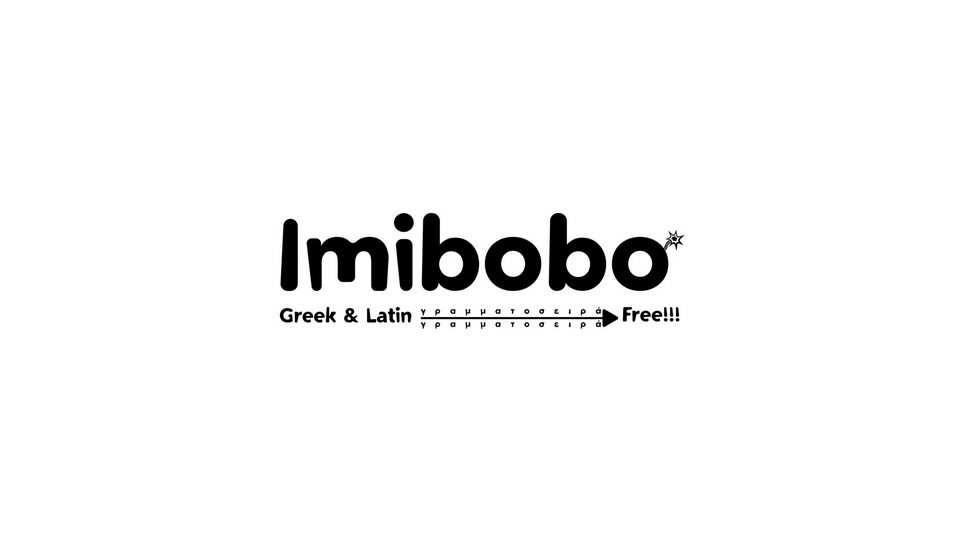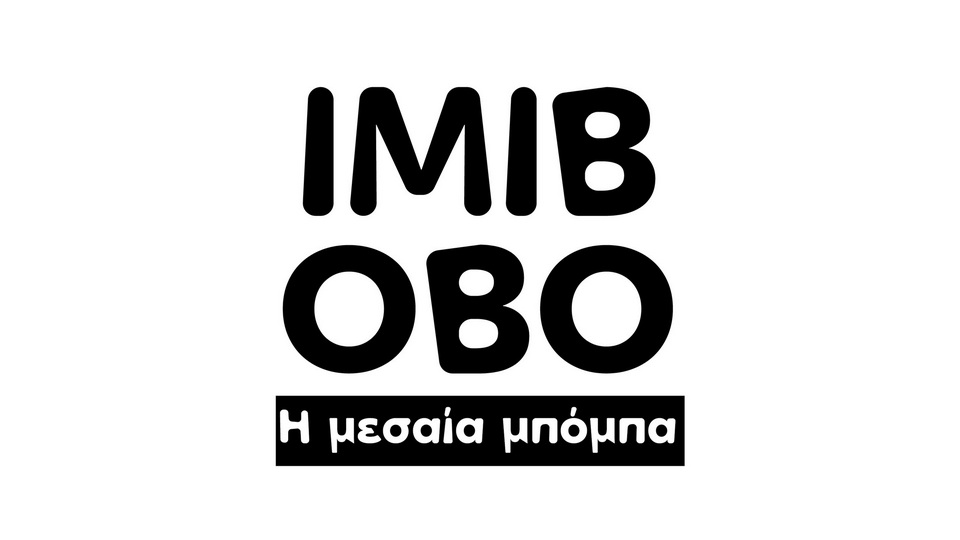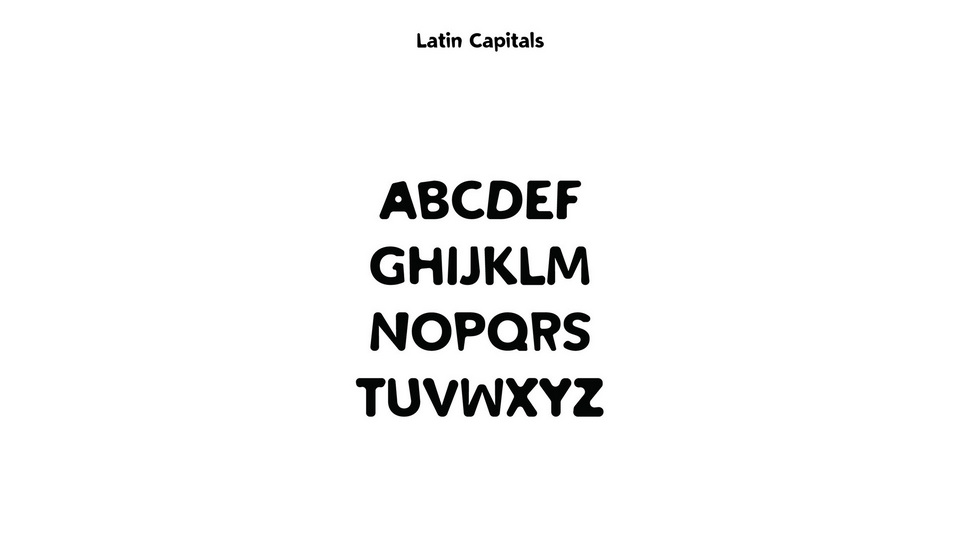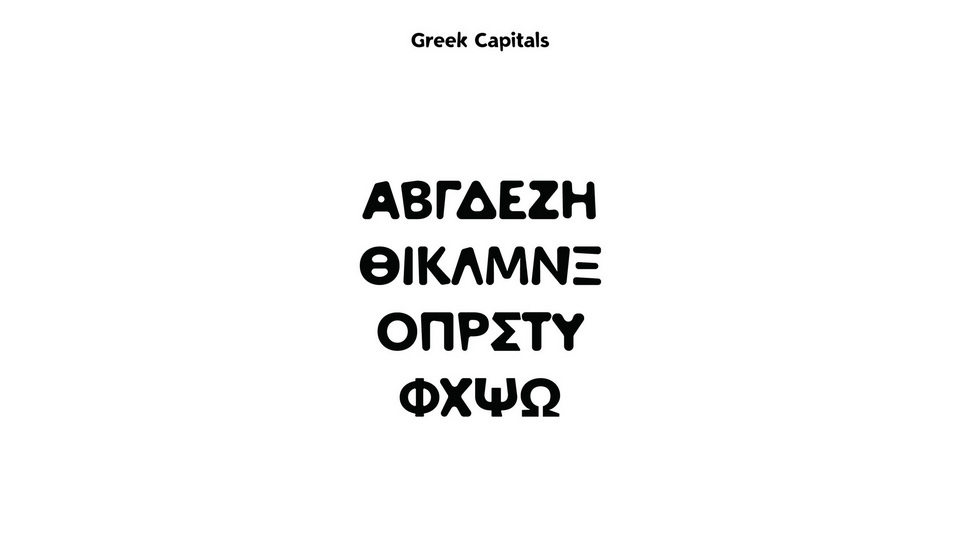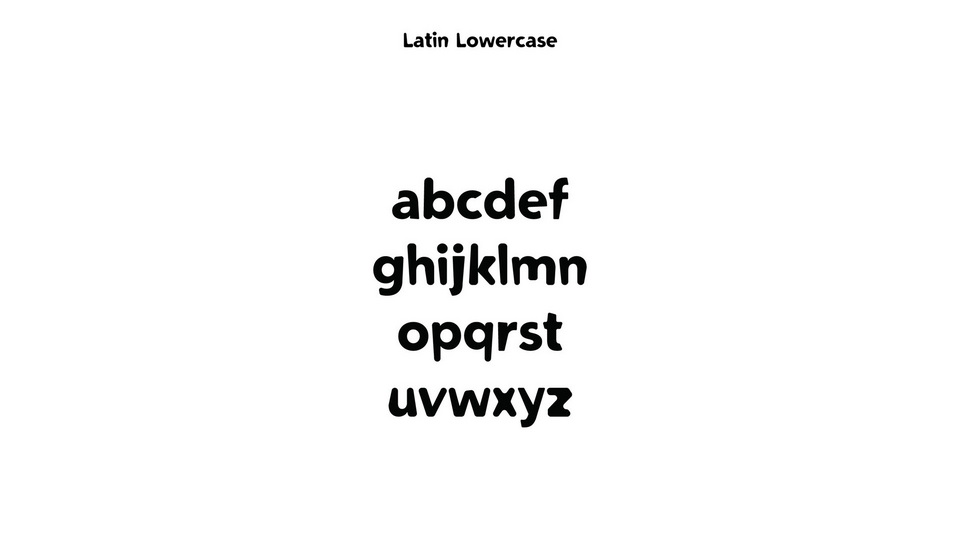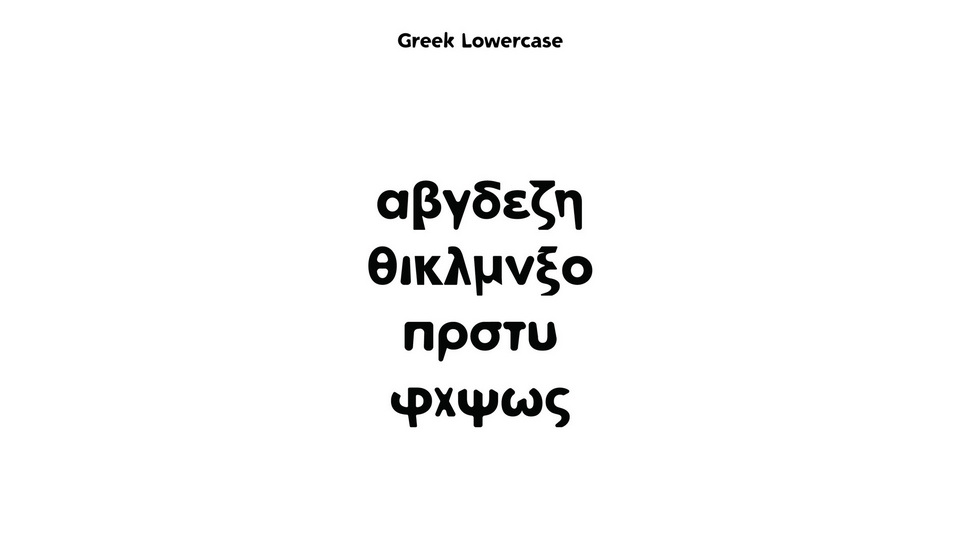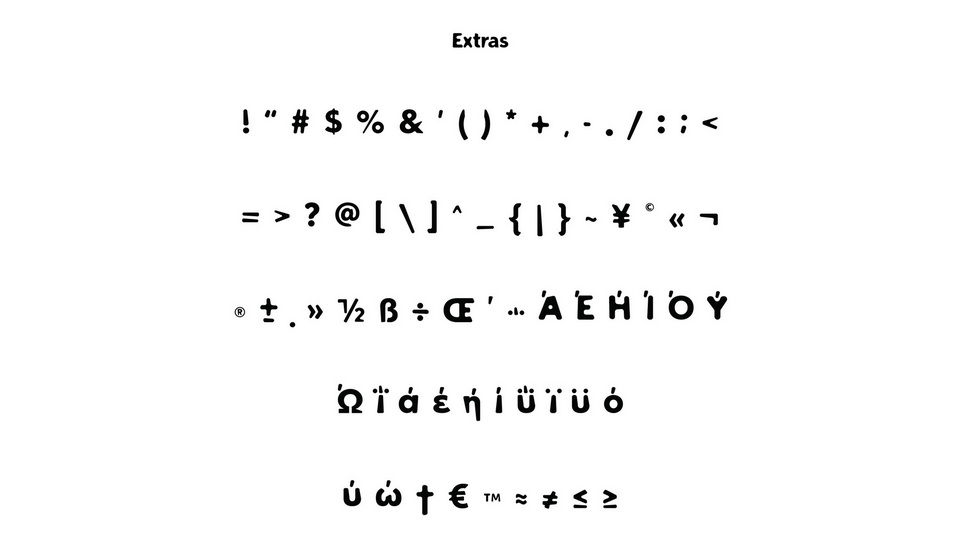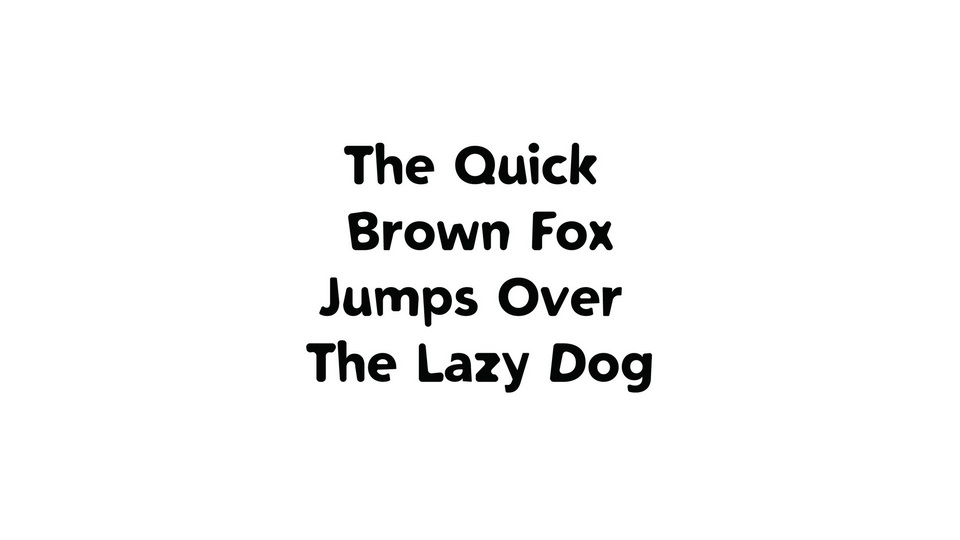
Imibobo is a font that bursts with exuberant playfulness and undeniable boldness. Each character is designed with soft, rounded letterforms that radiate energy and cheerfulness.
Imibobo font is perfect for designs that demand attention and a lighthearted vibe. Whether you’re creating eye-catching headlines, vibrant product packaging, or branding materials that need a dose of vivacious charm, Imibobo font adds a burst of playful character and a hint of energetic fun to every letter.